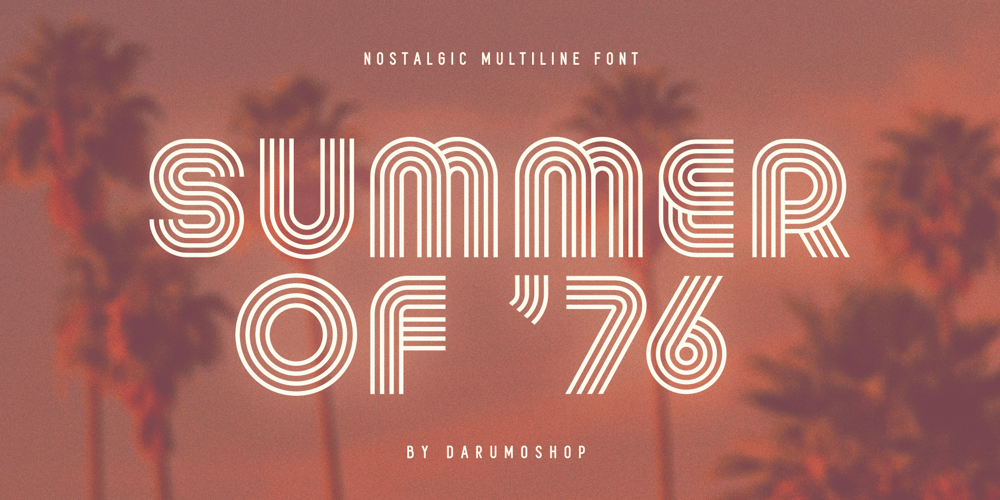
Summer of 76 Font Family was designed by Roman Dementev and published by Darumo. Summer of 76 contains 2 styles and family package options. Introducing Summer of ’76, a nostalgic multi-line font inspired by the 70’s aesthetic. Perfect for big eye-catching headers. Сan be used for text blocks also. Includes two styles: solid and multi-line (regular). This font could be the perfect solution if you want to give a lovely retro touch to your designs.